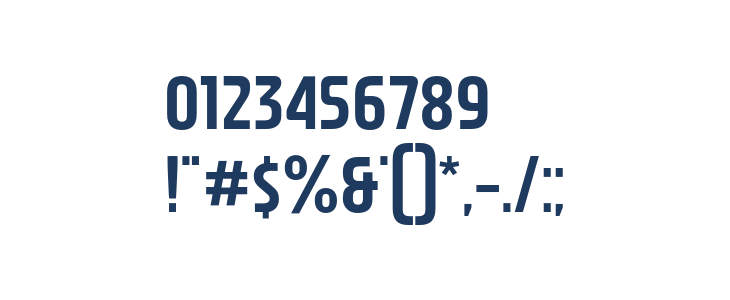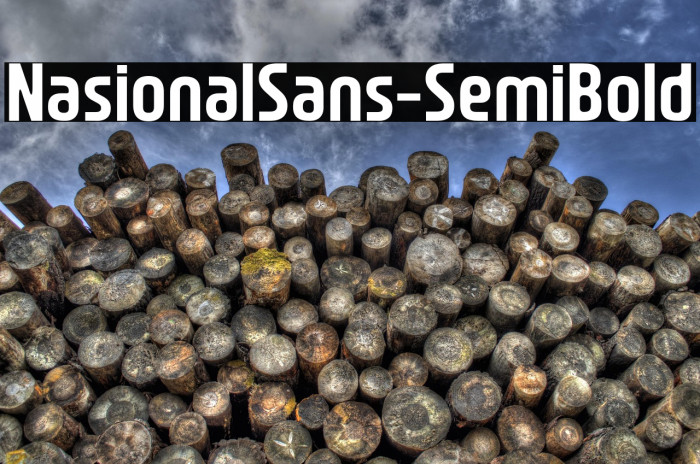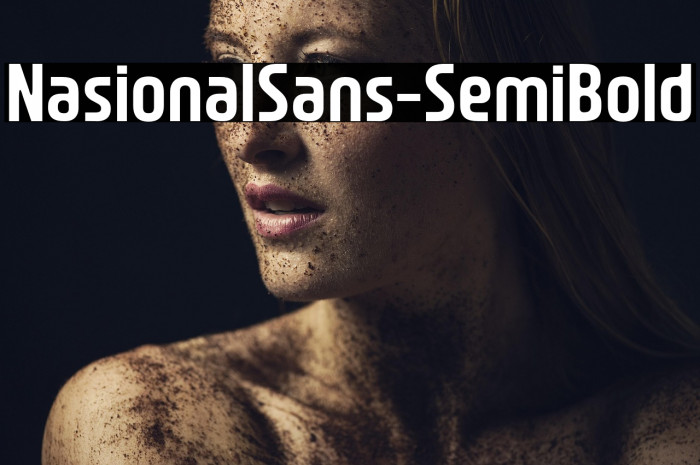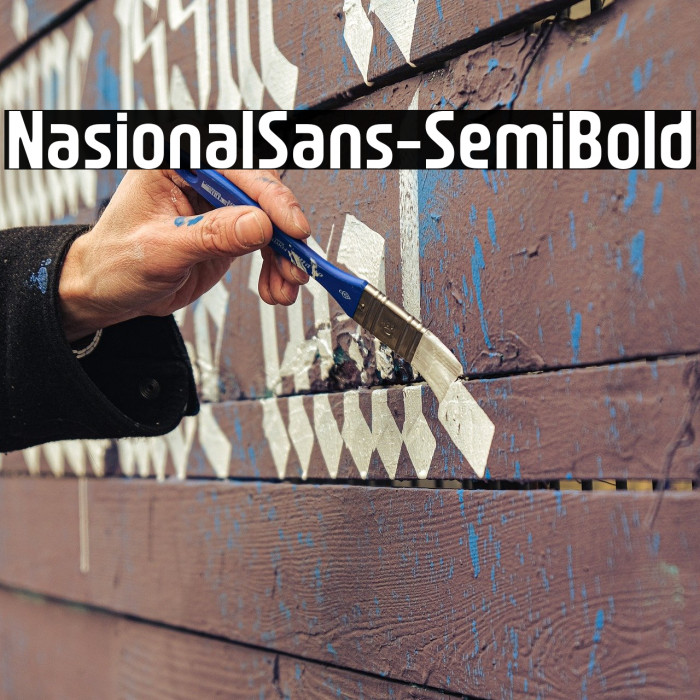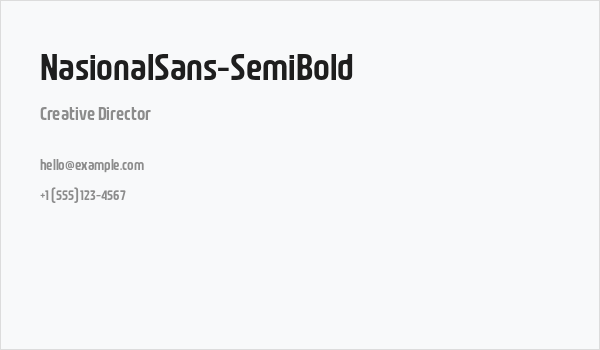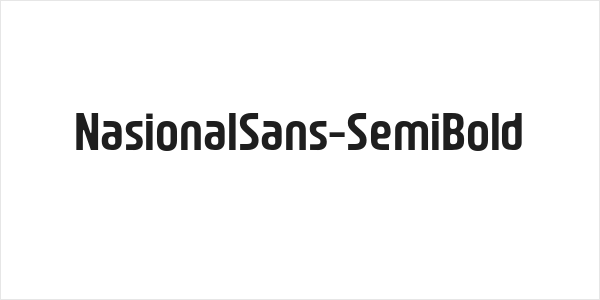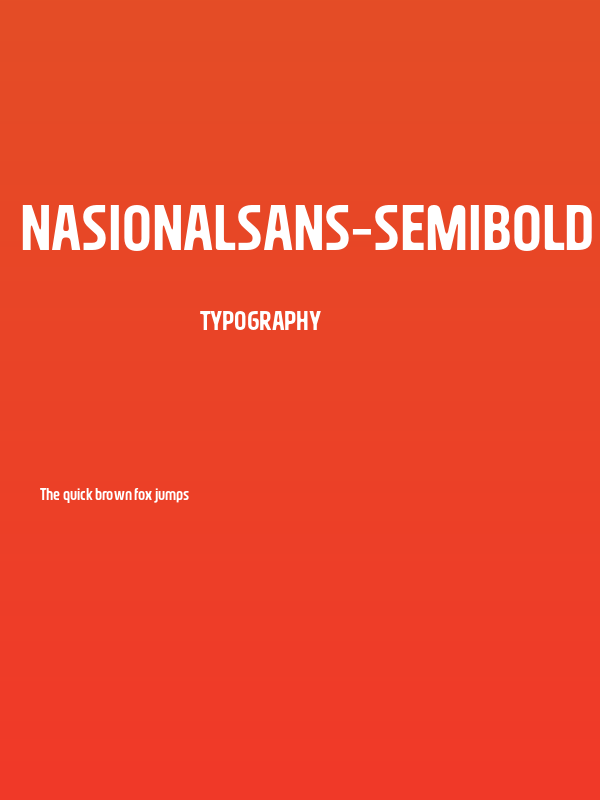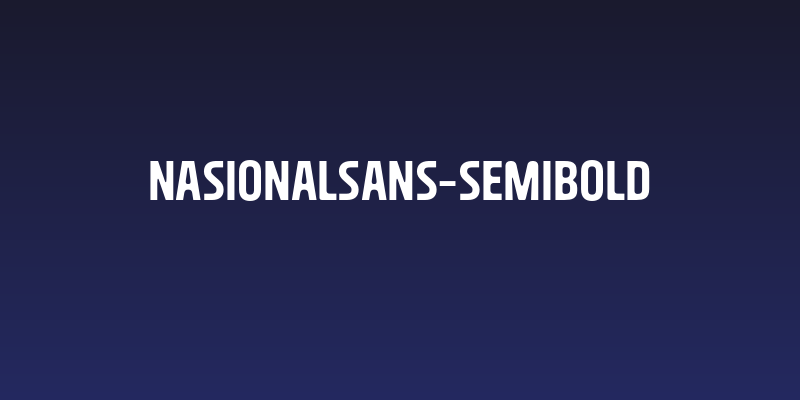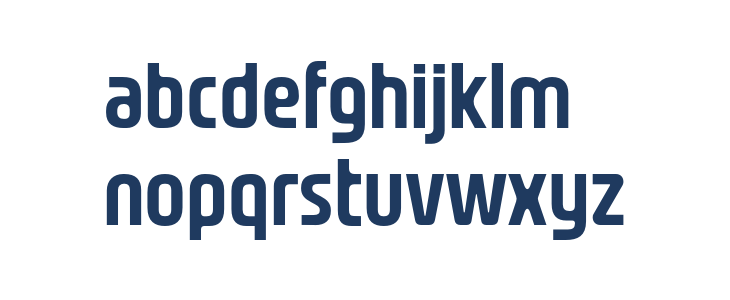
NasionalSans-SemiBold Font
NasionalSans-SemiBold Description
This font features a clean and modern sans-serif style with a semi-bold weight, providing a strong yet approachable appearance. The characters are well-defined with a uniform stroke width, ensuring excellent readability across various sizes. The design is straightforward, with slightly rounded edges that soften the overall look, making it versatile for both digital and print media. The numerals and special characters maintain the same aesthetic, ensuring consistency throughout. Its balanced proportions and clear structure make it suitable for a wide range of applications.